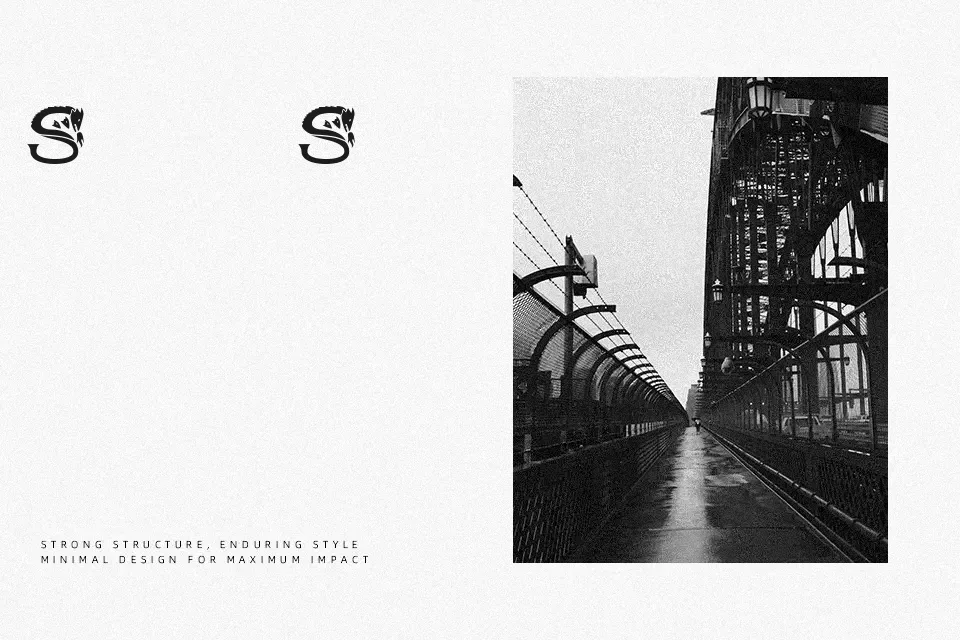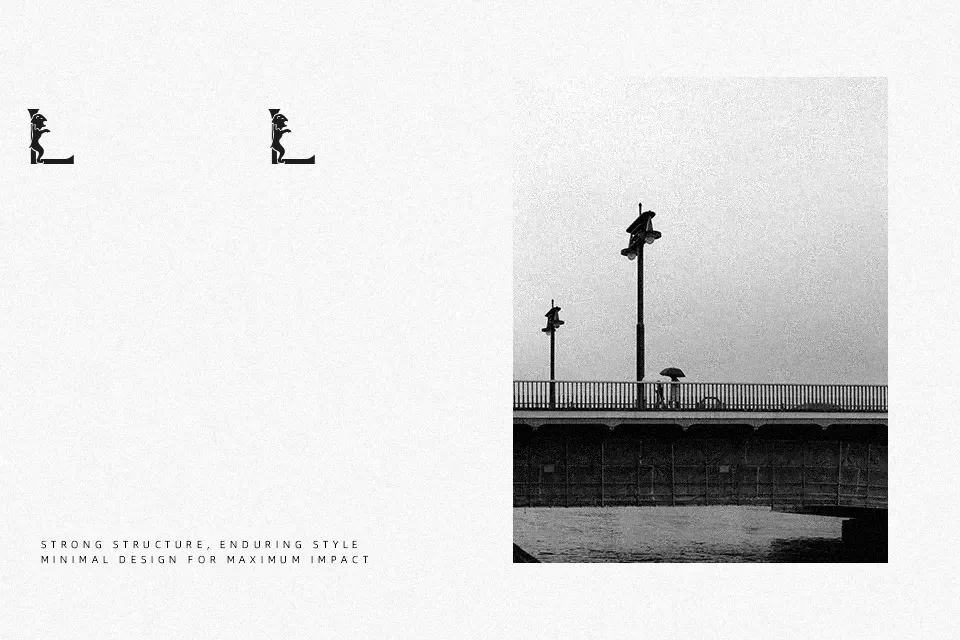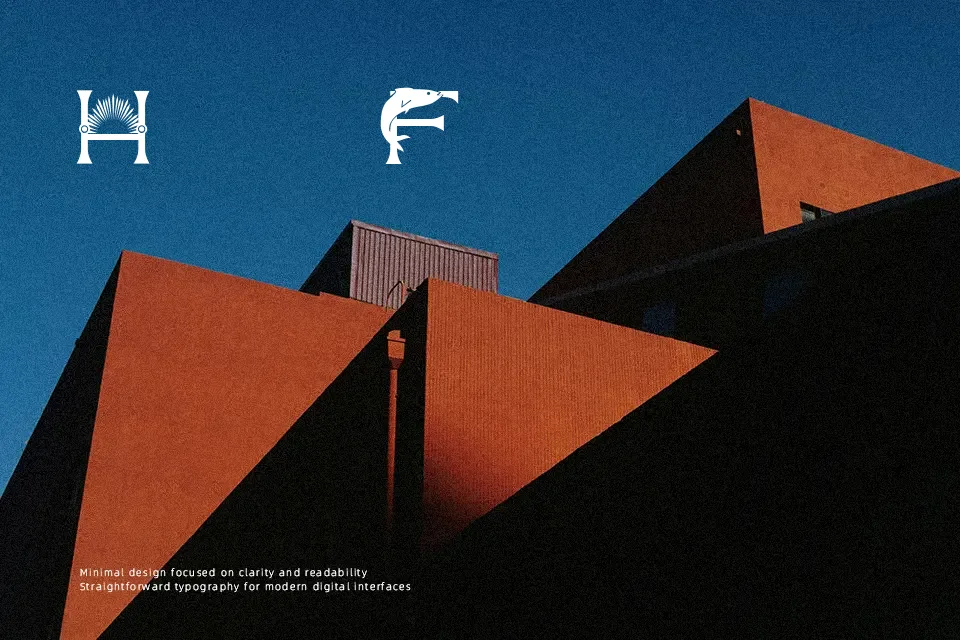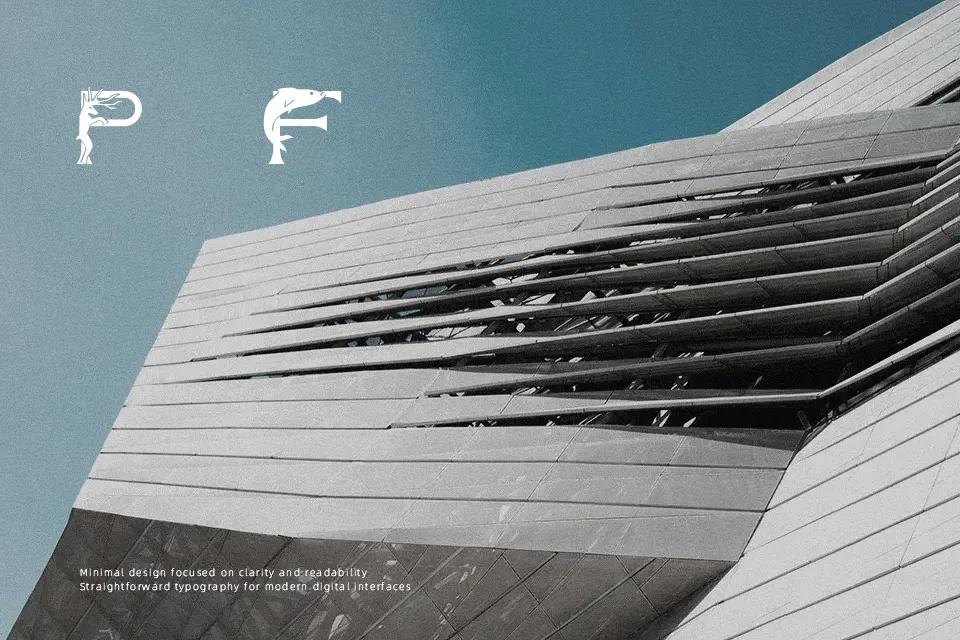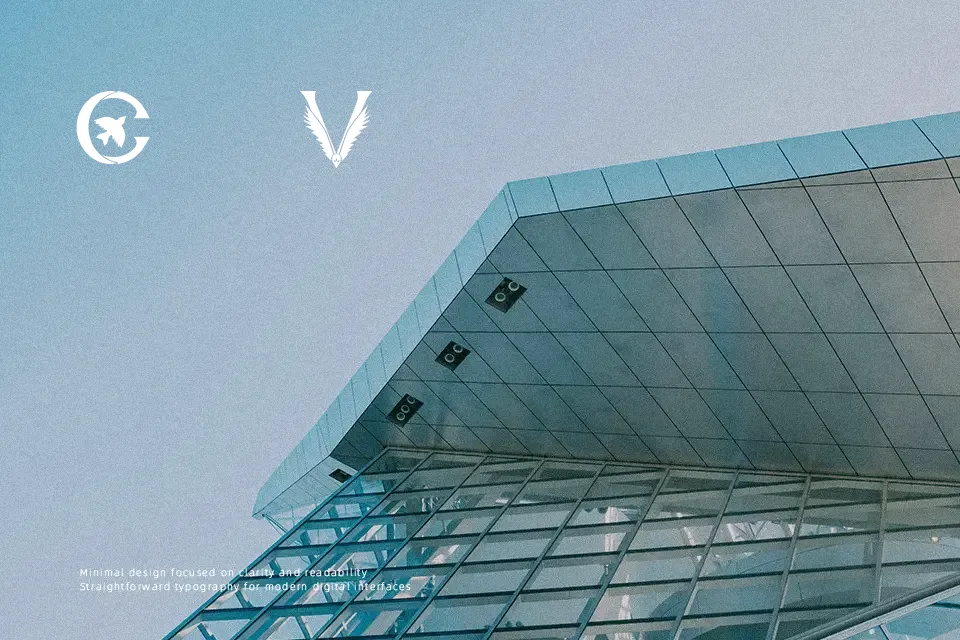
Atoiaf Font
Designed by Valeria Di Niscia
Atoiaf carries the weight of something ancient — its letterforms function as drop caps with illustrative, figurine-like detailing drawn from the iconography of A Song of Ice and Fire. Each character is visually self-contained: dense, ceremonial, and built for display sizing rather than running text. The uppercase glyphs carry strong contrast and historical ornamentation, making them suited to fantasy book design, medieval-themed event graphics, or collector’s edition packaging. That said, the character set is extremely limited — just 26 uppercase glyphs and a handful of symbols — which makes it unsuitable for anything requiring full typographic functionality. It works best as a single decorative initial or chapter header, not as a standalone title font where you need numerals or punctuation.
Best For:- Fantasy novel drop caps and chapter openers
– Medieval or GOT-themed event headers and posters
– Collector’s edition packaging accents
– Museum exhibition title graphics
Not Ideal For:- Body text or multi-line paragraphs
– Designs requiring numerals or punctuation
– Corporate or modern branding
– Multilingual or non-Latin projects
Perfect for editorial, film, and headline, with a ancient and decorative style.